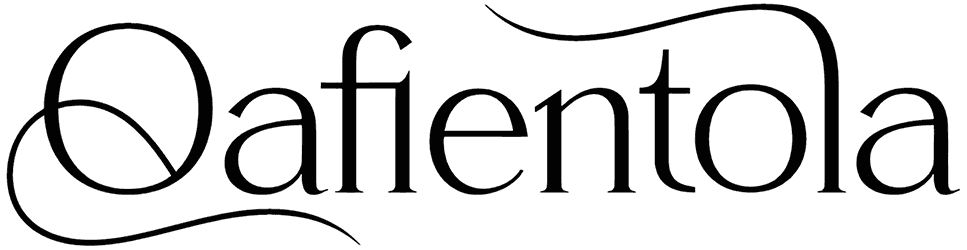
Qafientola Font
If you’re completely flattered by the fancy touch of Qafientola, that makes two of us. How can you even stop looking at something so seductive? You must have had your fair share of swash fonts too, but that doesn’t make Qafientola any less attractive.
From the very first glance, you’ll just know you’ll be using this sexy font every chance you get. A business card for a fashion brand? Sure! A nail polish branding design? True again. It’s like Qafientola can never miss.